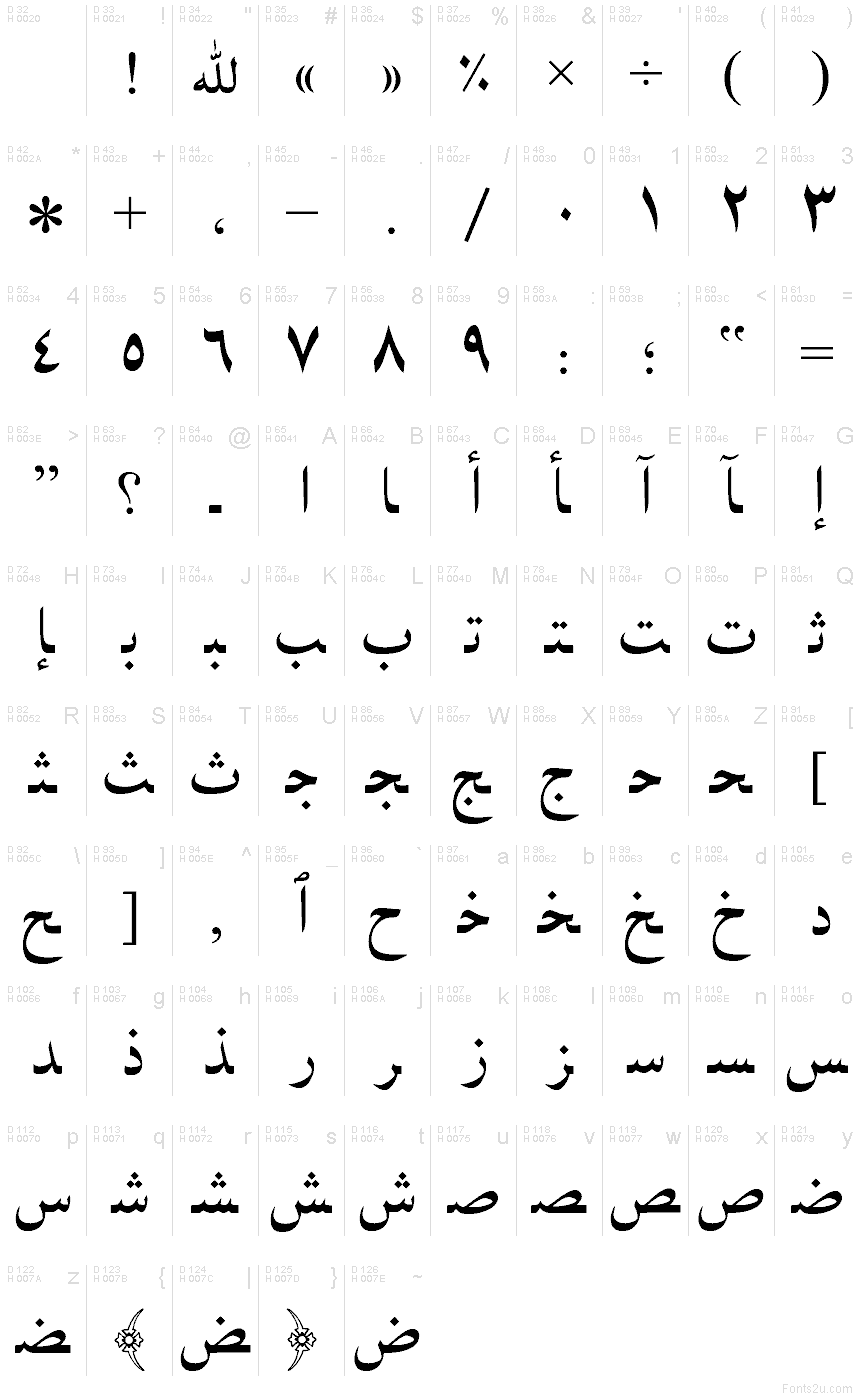
WTCArabicNaskhSSK1 Regular
WTCArabicNaskhSSK1 font is a sophisticated and free Arabic font whose beauty is inspired by the Naskh script. Each character’s intricate details allow your passionate messages to be shared effortlessly across creative designs, enabling projects that are both visually appealing and highly accurate.
Use WTCArabicNaskhSSK1 for posters, branding designs, magazines, or any other print-related projects. You can even engage readers further with the inviting aesthetic of this typography in social media posts and more—wherever text communicates stories to audiences.